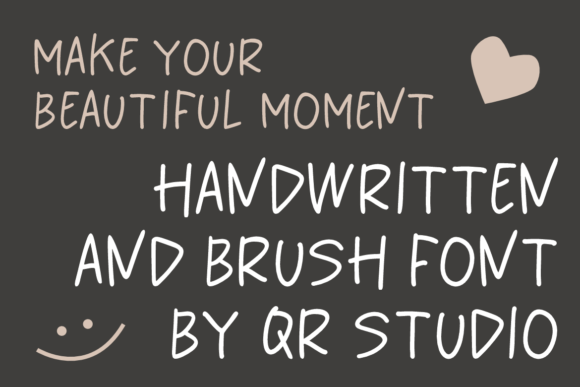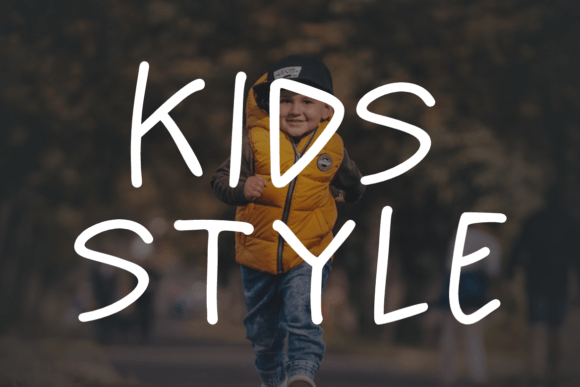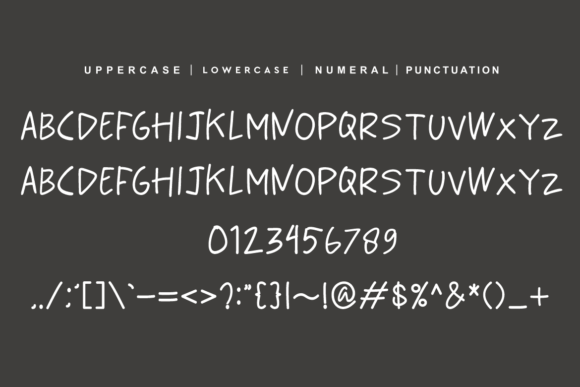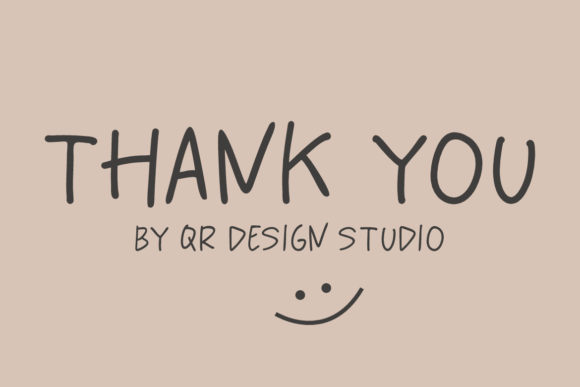
The Ultimate Friendliness Font: A Deep Dive into Childboys Font
I’ll never forget the time I was working on a project for a children’s birthday party, and I just couldn’t find the right font to capture that playful, friendly vibe. The client wanted something that would appeal to both kids and adults, and I was determined to deliver. That’s when I stumbled upon Childboys Font, and it instantly became my go-to. In this article, I’ll share my love for this charming font, its features, and how to make the most of it in your designs.
An Honest Review of Childboys Font
What I Love About Childboys Font ✨
- ✅ Easy to read: Childboys Font is a handwritten font that’s clear and legible, even at smaller sizes.
- ✅ Friendly and approachable: The font exudes warmth and friendliness, making it perfect for projects that require a personal touch.
- ✅ Versatile: Whether you’re designing for crafts, digital media, presentations, or greeting cards, Childboys Font adapts seamlessly.
- ✅ Impeccable childish charm: The font’s playful, childlike quality makes it an excellent choice for projects targeting kids or a younger audience.
While Childboys Font is an excellent choice for many projects, it’s not without its limitations. ⚠️ Some users may find that the font:
- May not be suitable for very formal or professional projects, as its playful nature might not fit the tone.
- Can appear too casual or informal for certain design applications.
The Designer Inspiration Behind Childboys Font
Childboys Font was designed with the intention of capturing the innocence and playfulness of childhood. The creator aimed to produce a font that would be both easy to read and delightful to look at, perfect for any project requiring a friendly, approachable tone. While the actual designer remains anonymous, their work reflects a deep understanding of typography and the needs of creative professionals.
| Author | qrdesignstd |
Q: What makes Childboys Font so special?
A: Childboys Font stands out for its unique blend of friendliness, readability, and childish charm, making it versatile for various design projects.
Q: Is Childboys Font easy to read?
A: Absolutely! Childboys Font is designed to be clear and legible, making it perfect for both digital and print projects.
Q: Can I use Childboys Font for educational materials?
A: Yes, Childboys Font is an excellent choice for educational materials, especially for projects targeting children, due to its friendly and approachable nature.